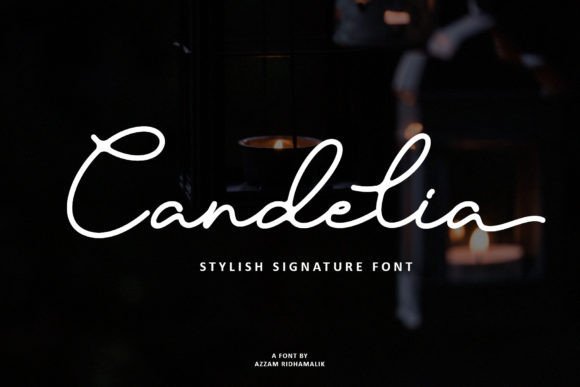
Candelia Signature Font
Candelia Signature Font is a beautiful handwritten font. Made in combination with hand lettering, it comes with dramatic movement and it’s great for any next creative project that needs a signature vibe or modern touch. Introducing Candelia Font. It’s a handwritten signature script with a natural and stylish flow. Fall in love with its timeless charm! Perfect for branding projects, Logo design, Clothing Branding, product packaging, magazine headers, or simply as a stylish text overlay to any background image.